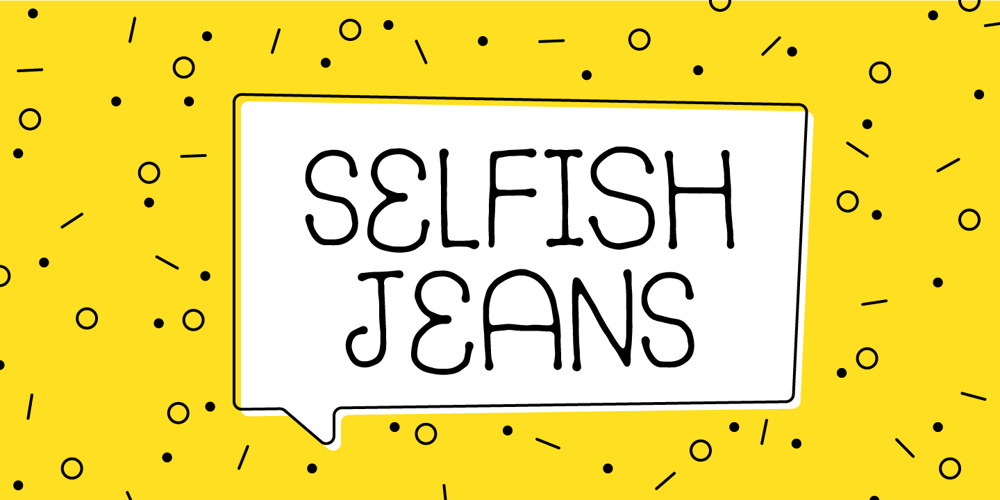
Selfish Jeans Font Family was designed by Jakob Fischer and published by Bogstav. Selfish Jeans contains 2 styles and family package options. The song “Selfish Jean” by Travis inspired me to name this font, and a runny pen made me draw the letters. Actually, I started making the font while listening to that particular song – and the whole atmosphere about that situation, suited me perfect to make this handmade font! 🙂